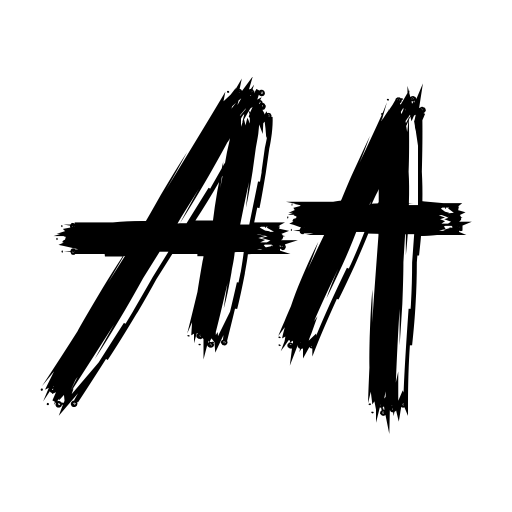
Blackhack Demo is a bold, expressive handwritten font characterized by its rough, brushstroke texture that gives it an energetic and dynamic feel. Its tall, narrow letterforms with sharp, irregular edges convey a sense of urgency and creativity, making it ideal for eye-catching headlines, posters, and branding that seeks a modern, edgy, or artistic vibe. This font works best in designs that want to stand out with a raw, handcrafted personality.
Blackhack Demo Font
About Blackhack Demo Font